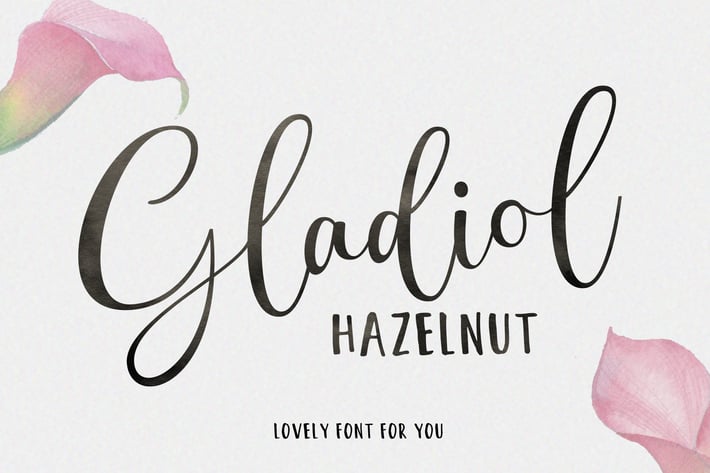
Gladiol Haze // lovely font
Say Hi to Gladiol,
Gladiol come with perfect curve and feminime style with 2 families, script and sans serif. So it looks natural like a handmade. This font is best used for your design project that has the concept of fun, girly, romantic and elegant. Gladiol perfect for fashion, branding, design, etc. Come with a fresh lowercase, uppercase, multilingual.